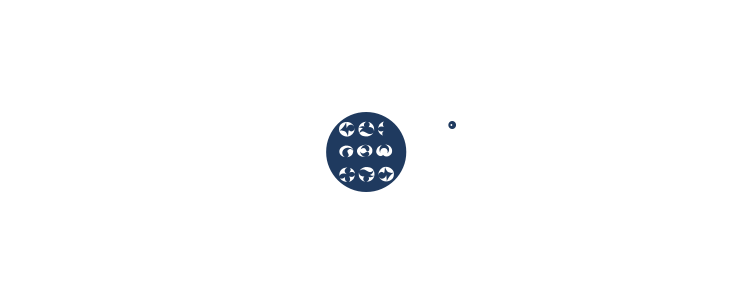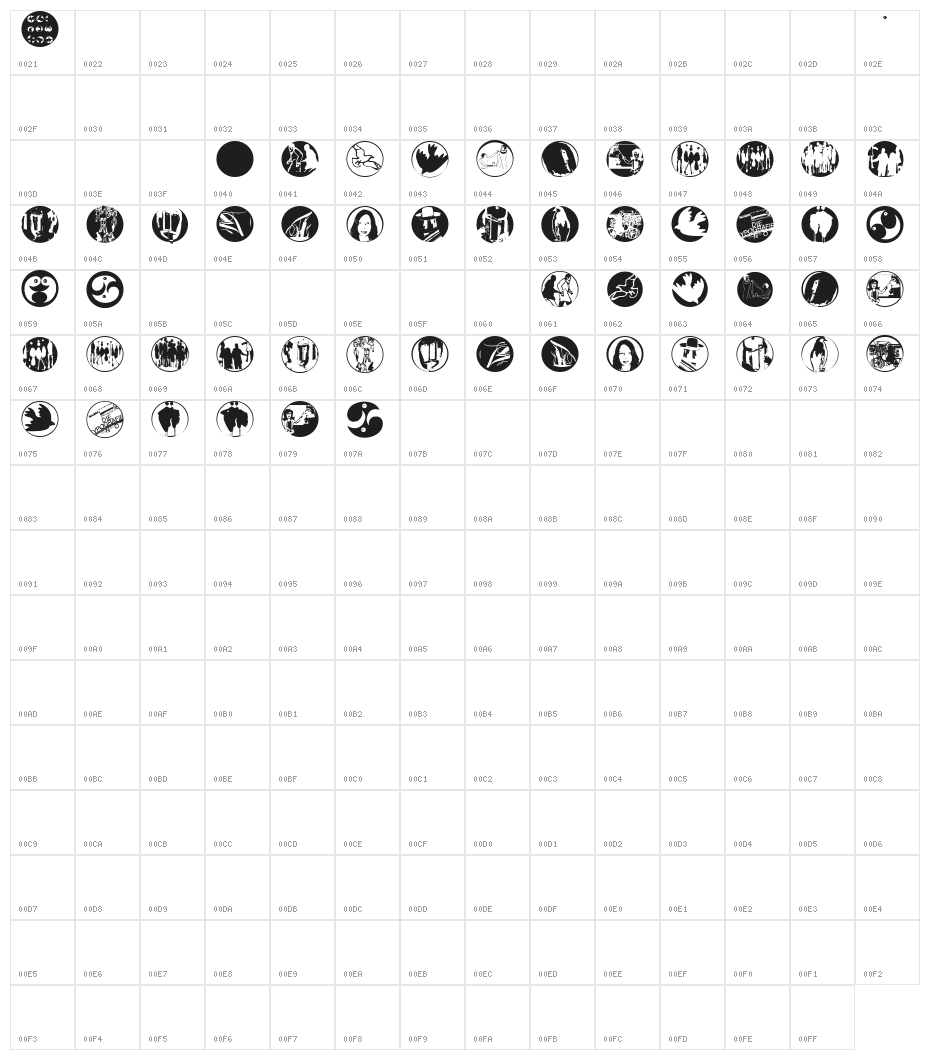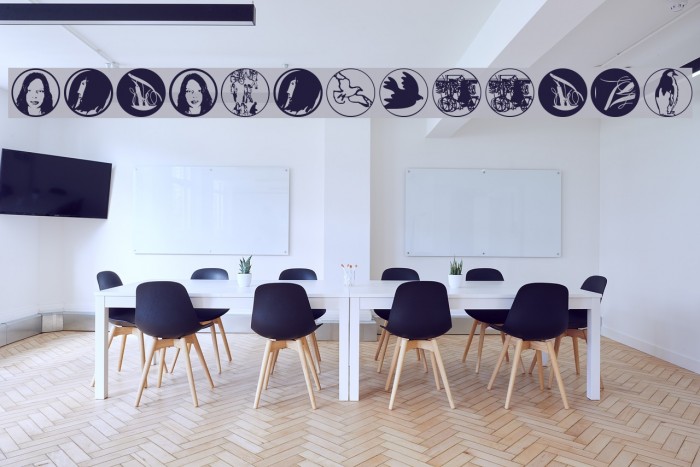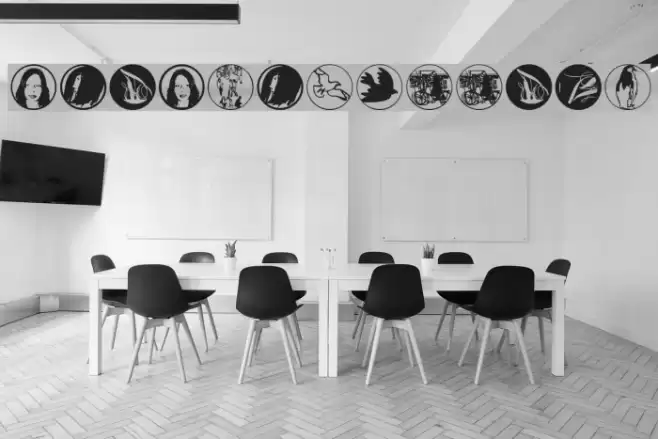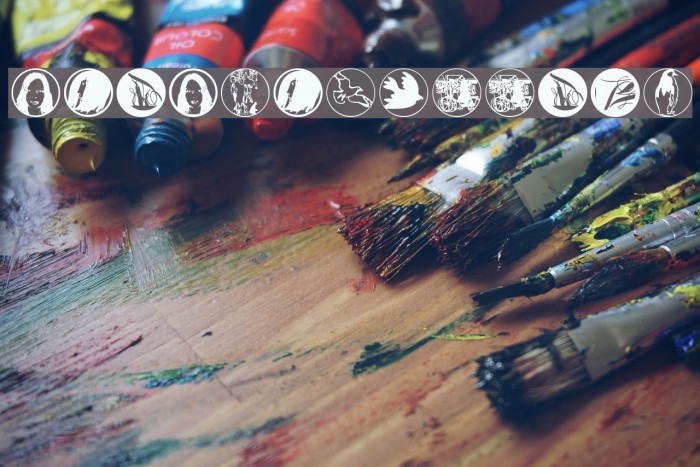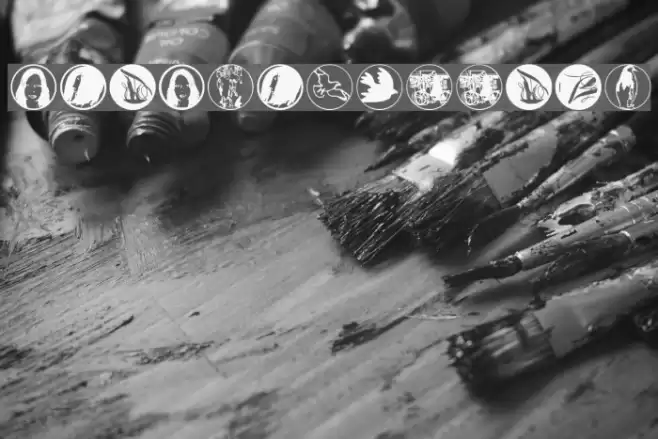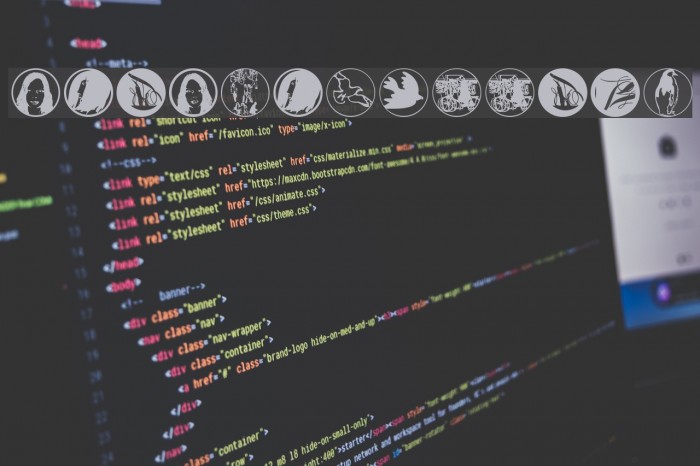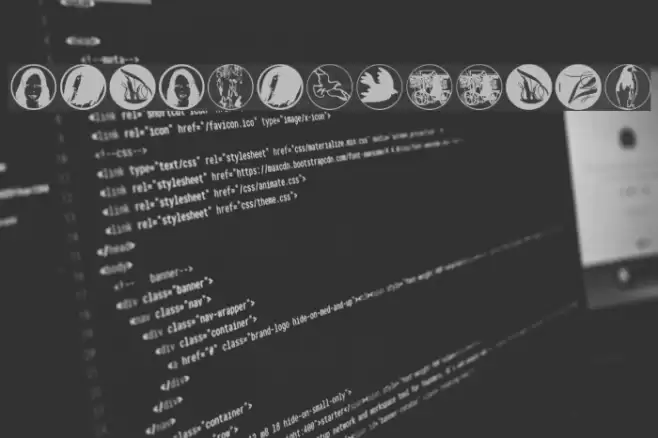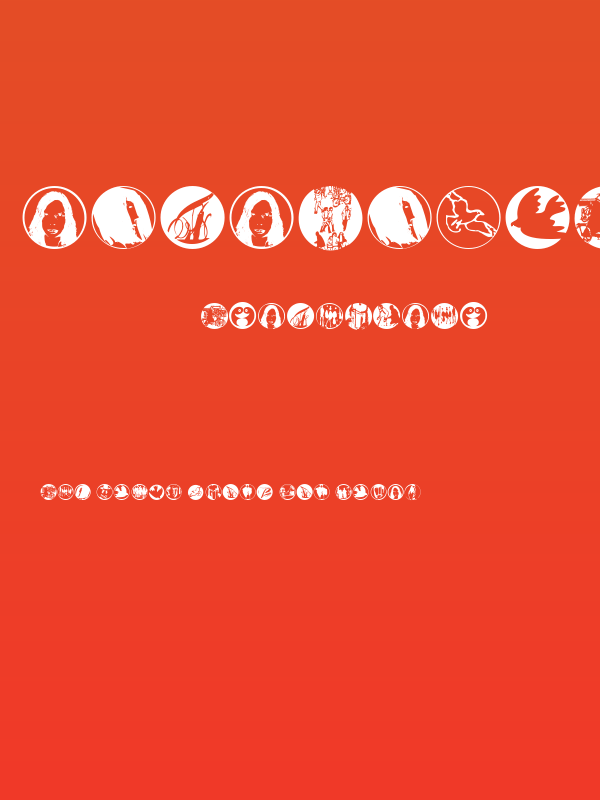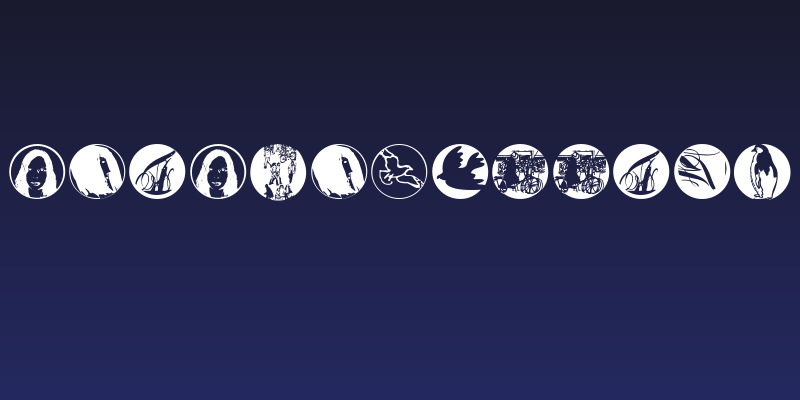
PeopleButtons Font
PeopleButtons Description
A decorative dingbat font featuring circular icons with high-contrast black-and-white silhouettes of people, hands, faces, groups, and symbolic shapes. Each character is represented by a unique pictogram within a circle, offering a playful and illustrative style.
| Overall Style | Decorative, Playful, Modern |
| Use Case | Icons, Decorative elements, Infographics |
| Proposed Projects | Infographics, educational materials, posters, social media graphics, icon sets, event flyers. |